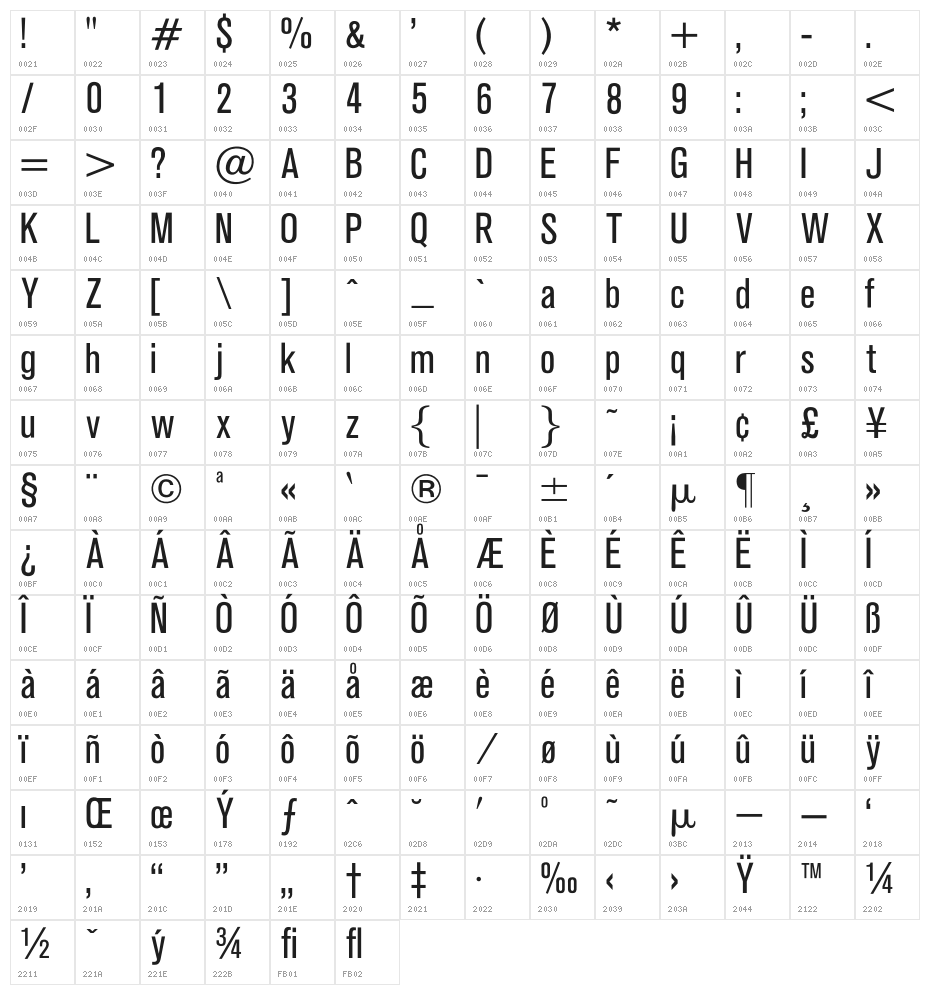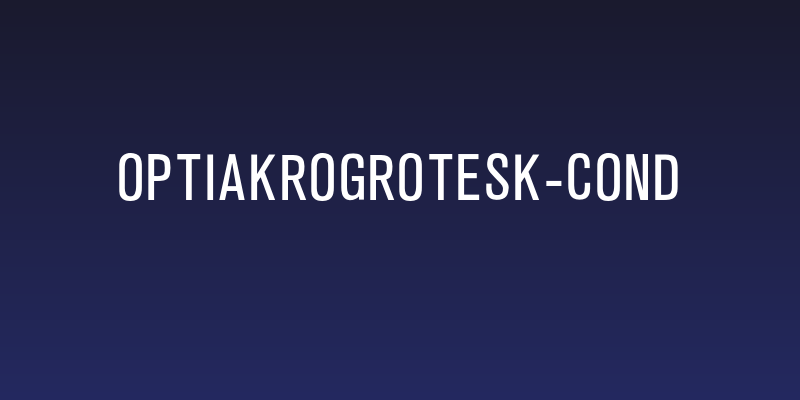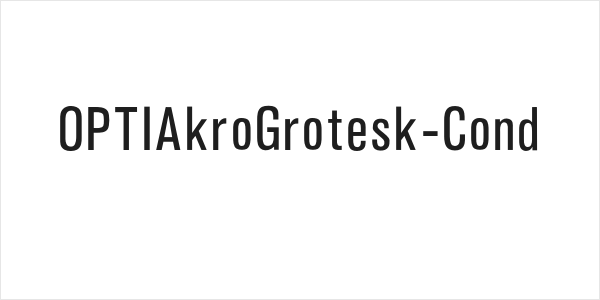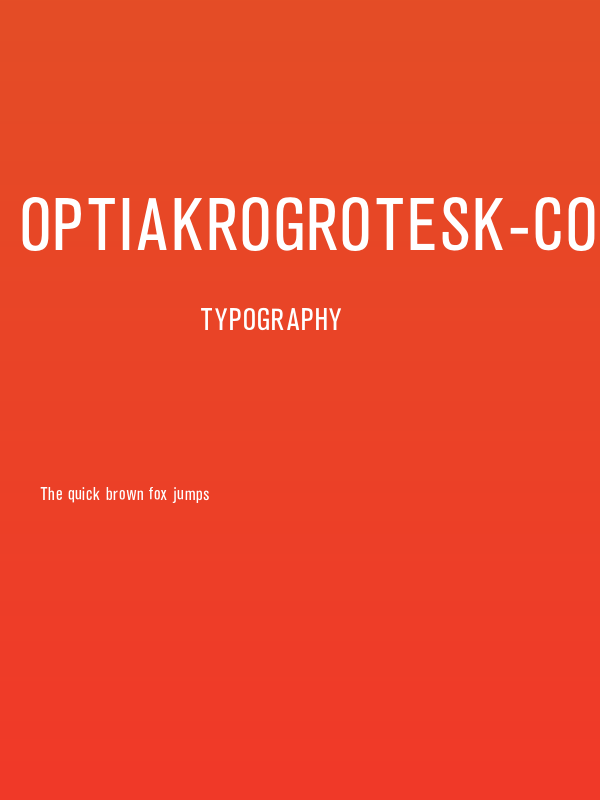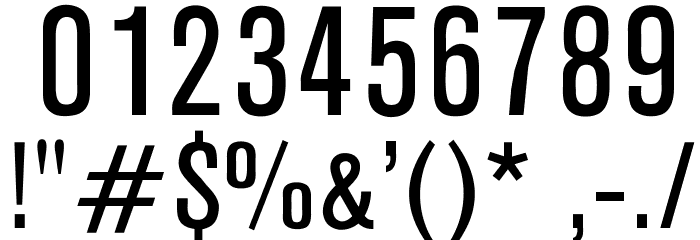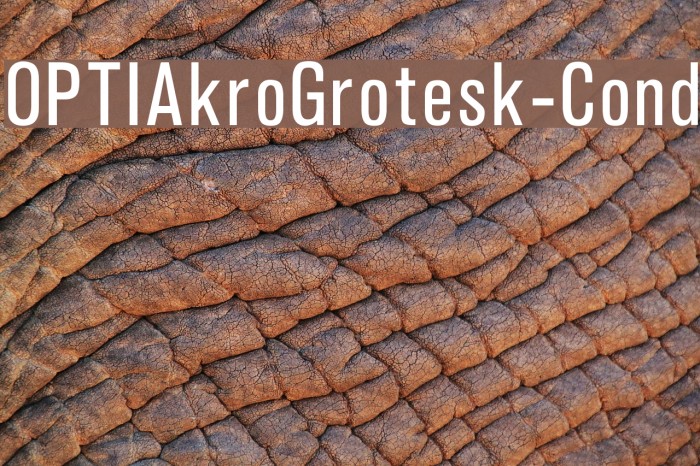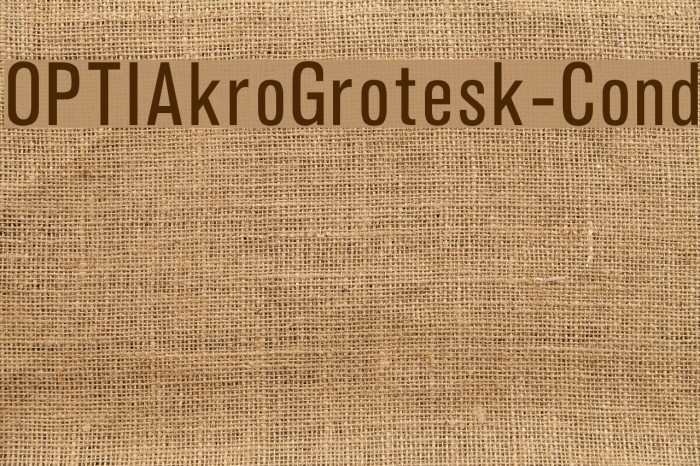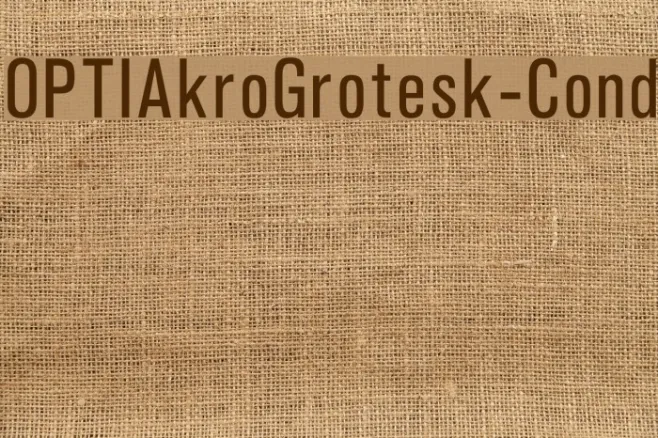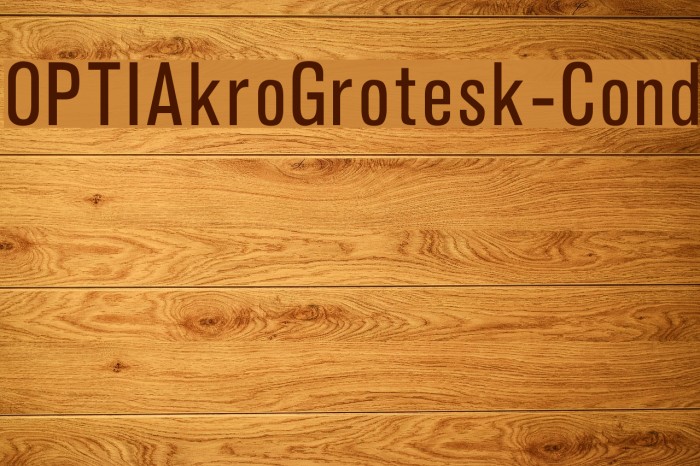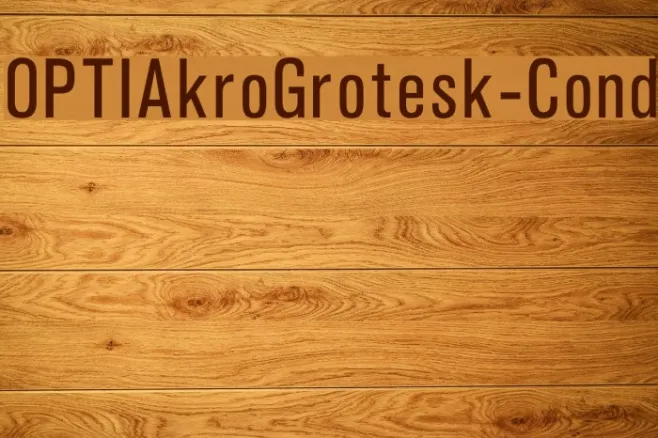
OPTIAkroGrotesk-Cond Font
OPTIAkroGrotesk-Cond Description
This font features a clean and modern sans-serif design with a condensed width, making it ideal for space-saving applications. The characters are uniform in stroke width, providing a consistent and balanced appearance. The uppercase and lowercase letters are well-proportioned, with a slightly taller x-height that enhances readability. The numerals are clear and distinct, ensuring easy legibility in various contexts. Special characters are included, maintaining the font's cohesive style. Overall, this font's simplicity and clarity make it versatile for numerous design projects.
| Proposed Projects | Ideal for branding, editorial design, web design, and signage where space is limited. |